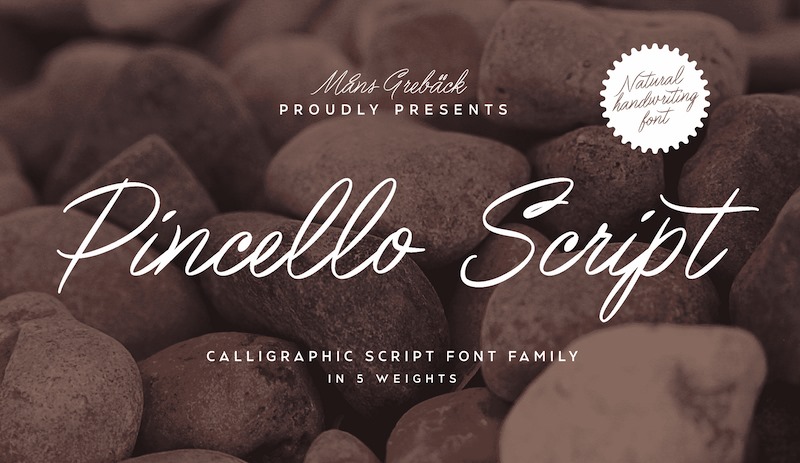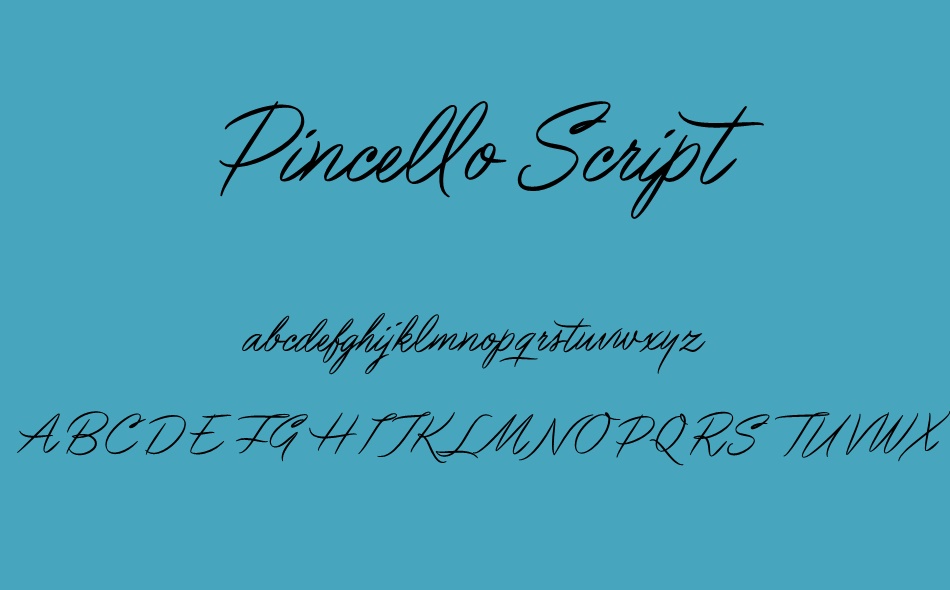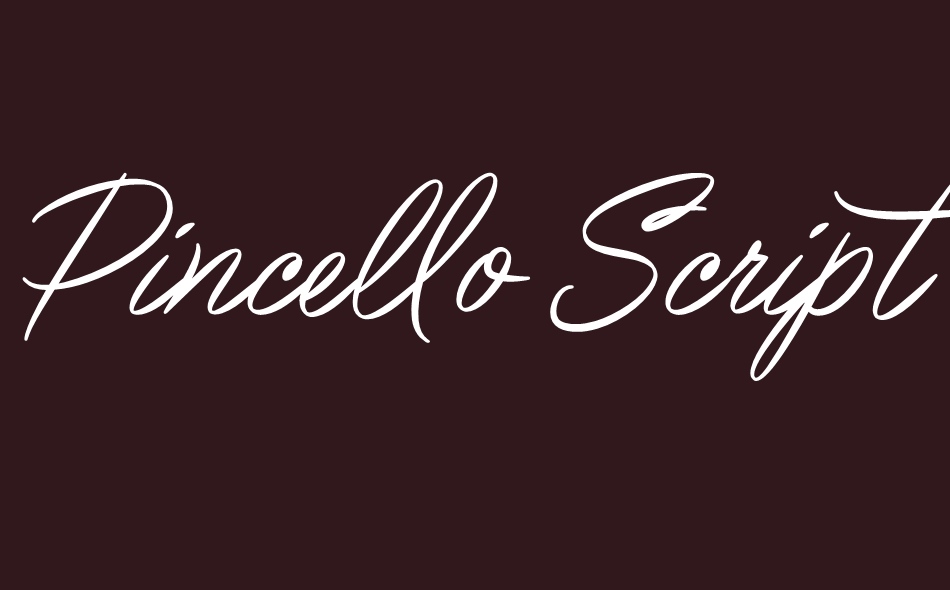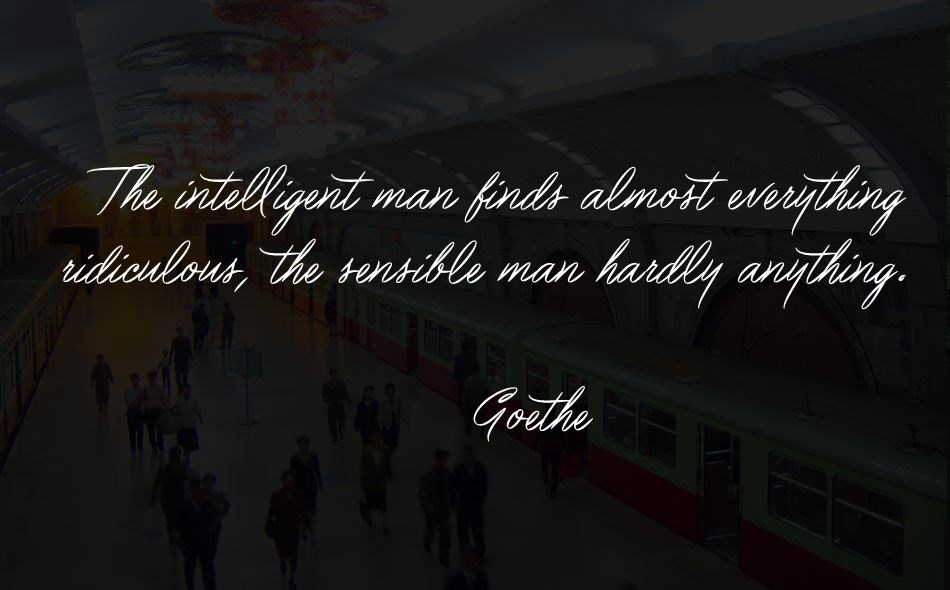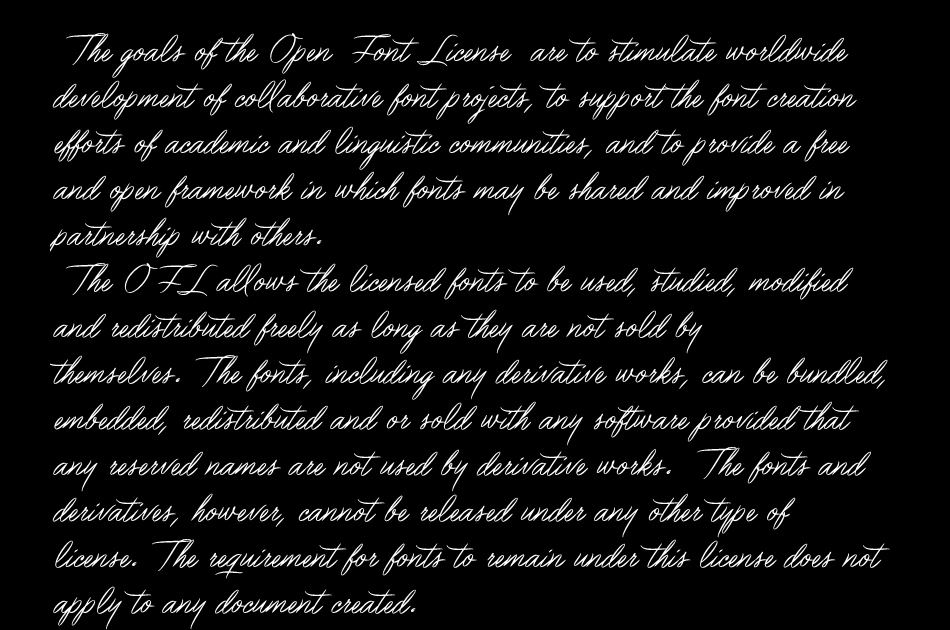
Pincello Script font
Pincello Script is a calligraphic masterpiece that skillfully blends the art of brush painting and handwriting to create a truly charming and captivating font. Its cursive, painted letterforms bring a touch of elegance and personality to your creative projects.
Pincello Script is a calligraphic masterpiece that skillfully blends the art of brush painting and handwriting to create a truly charming and captivating font. Its cursive, painted letterforms bring a touch of elegance and personality to your creative projects, making Pincello Script a perfect choice for invitations, branding, and more.
The Pincello Script font family offers a variety of weights to suit your design needs, including Thin, Light, Regular, Bold, and Black. This diverse range of styles allows you to craft distinctive visual experiences and effortlessly adjust the mood and impact of your creations.
Equipped with advanced OpenType functionality, Pincello Script delivers top-notch quality and ensures full control and customizability. The font includes stylistic alternates, ligatures, and additional features to enhance your designs and make them truly unique.
In addition to its complete support for Latin-based languages, Pincello Script also covers Arabic scripts. Carefully crafted to ensure authenticity and harmony, the font seamlessly incorporates Arabic letterforms, making it a versatile choice for projects that require Middle Eastern compatibility.
Mans Greback is a dedicated Swedish typeface designer who strives to make unique and versatile fonts. With a passion for design and typography, Mans seeks to improve and expand his craft, creating fonts that resonate with designers and audiences alike.